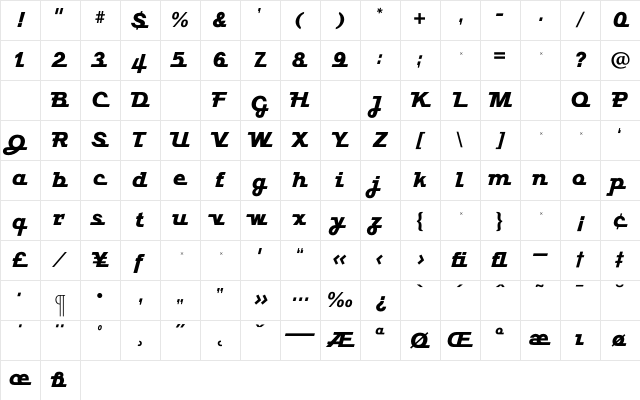
JavelinExtraBold Regular
Design Context for JavelinExtraBold
JavelinExtraBold is a composed and adaptable typeface that performs quietly and consistently across a wide range of design contexts. Its bold stroke weight gives it real presence on the page.
Pro Tip: Use JavelinExtraBold in both headline and body roles to test its range before committing to a single application.